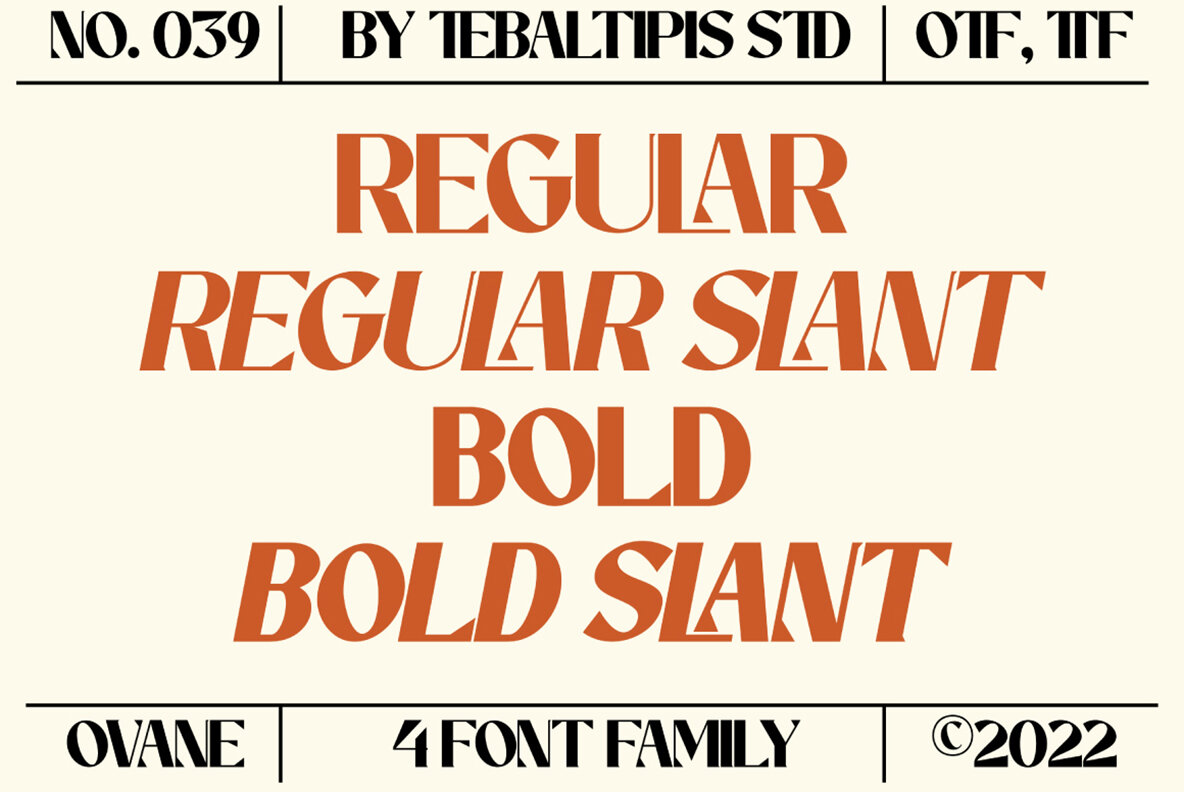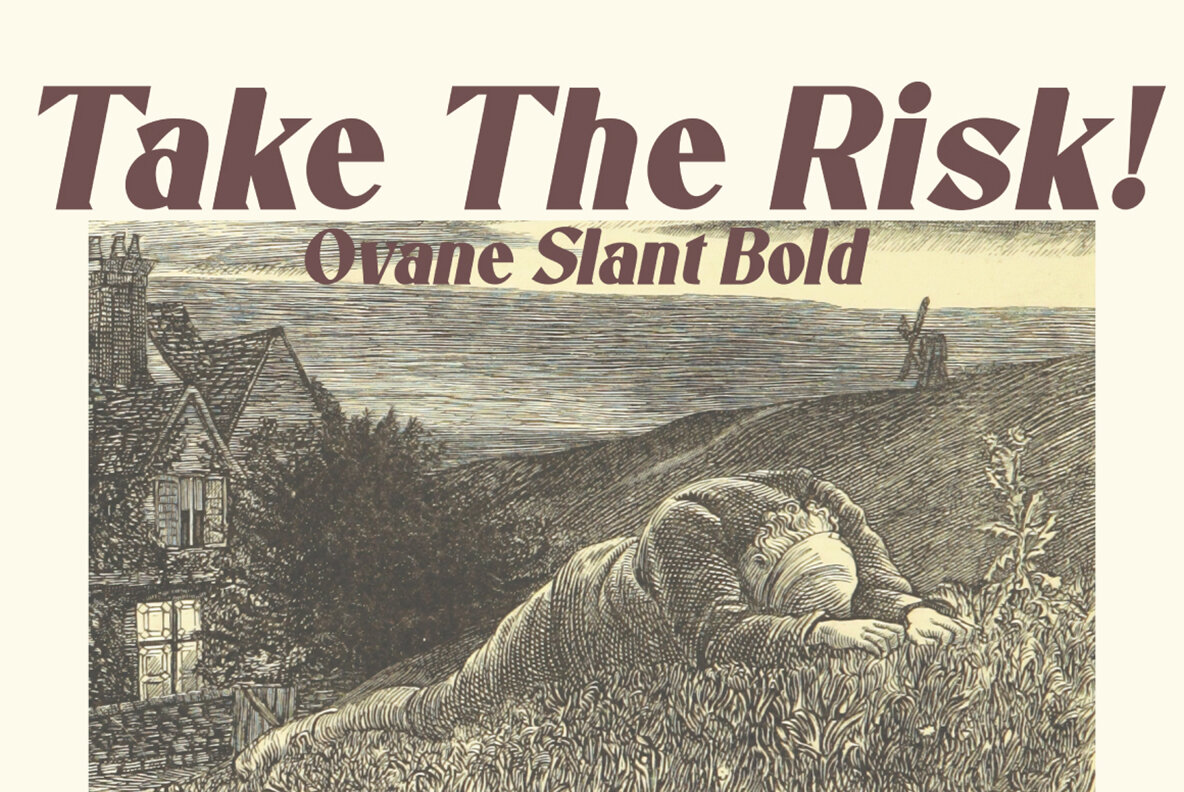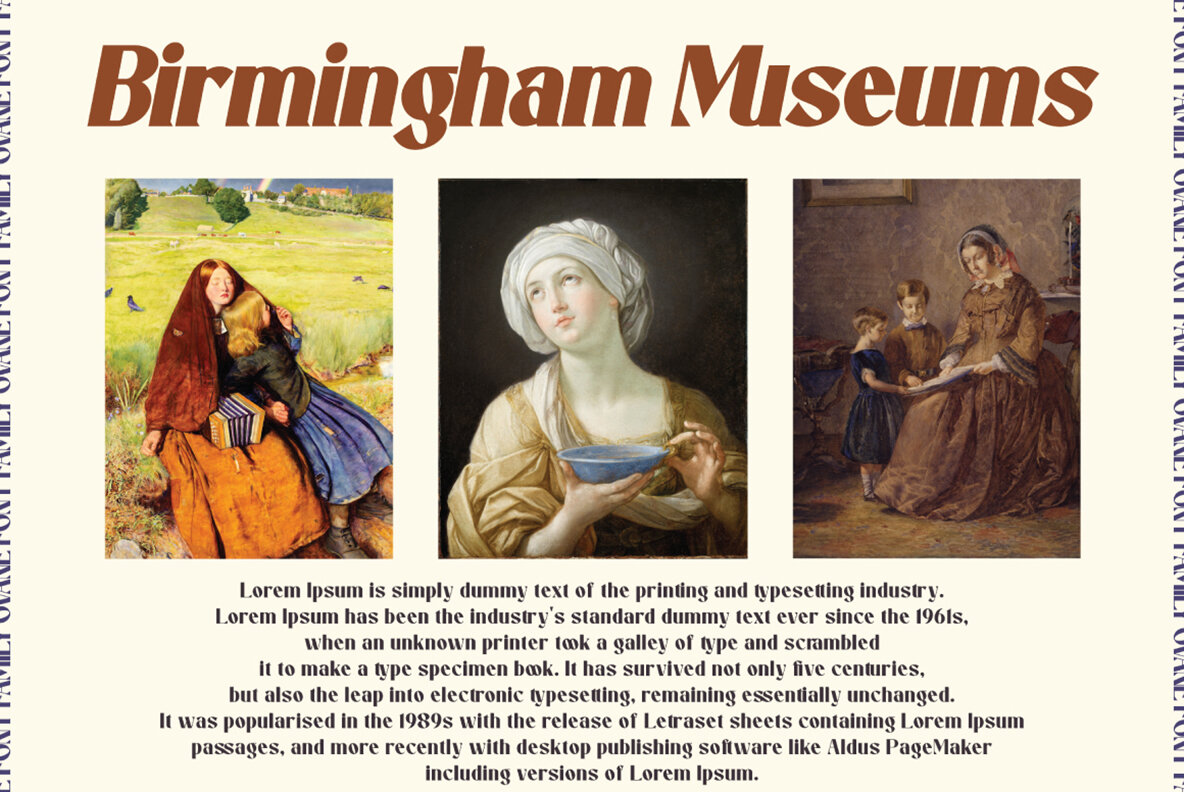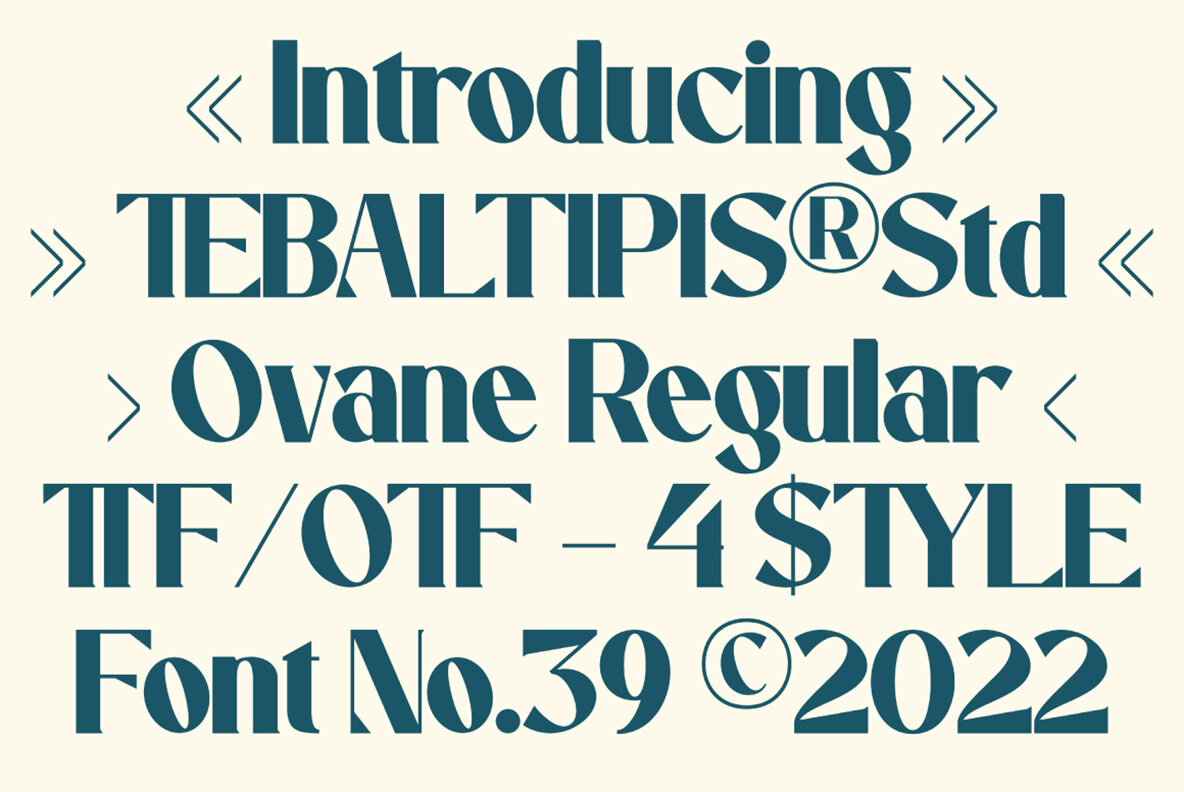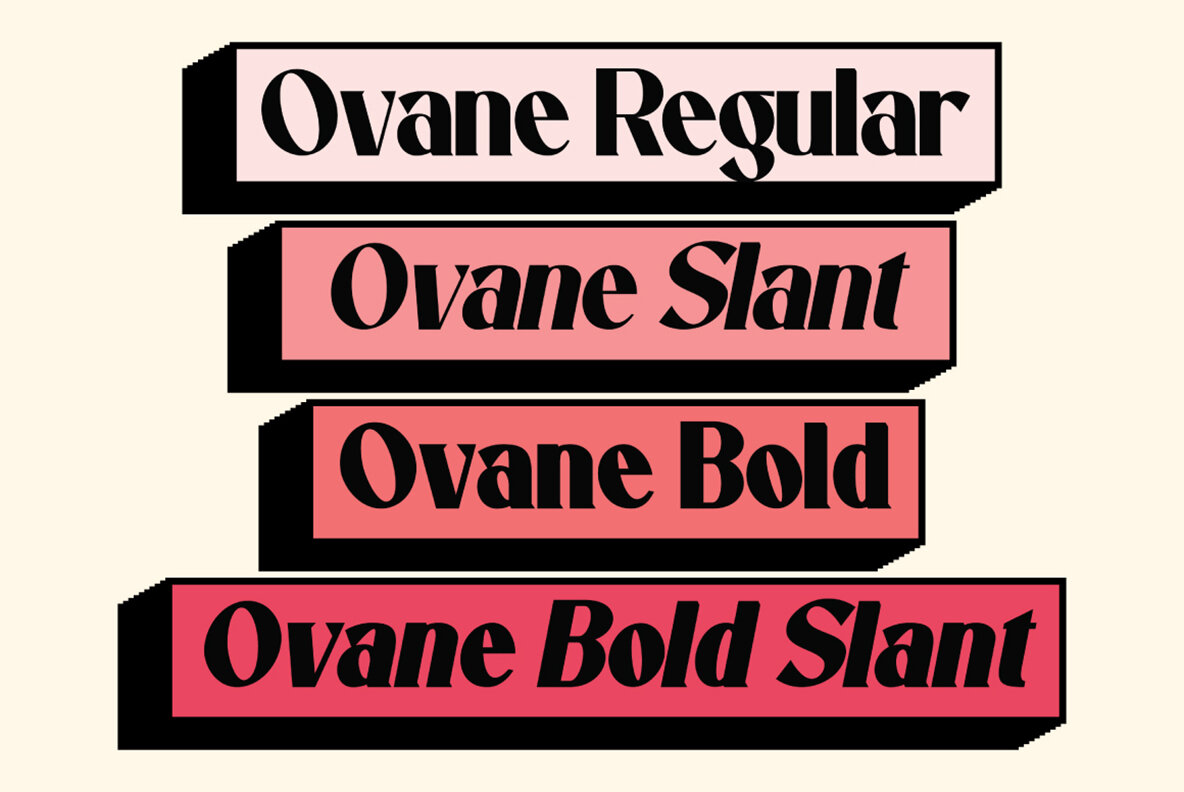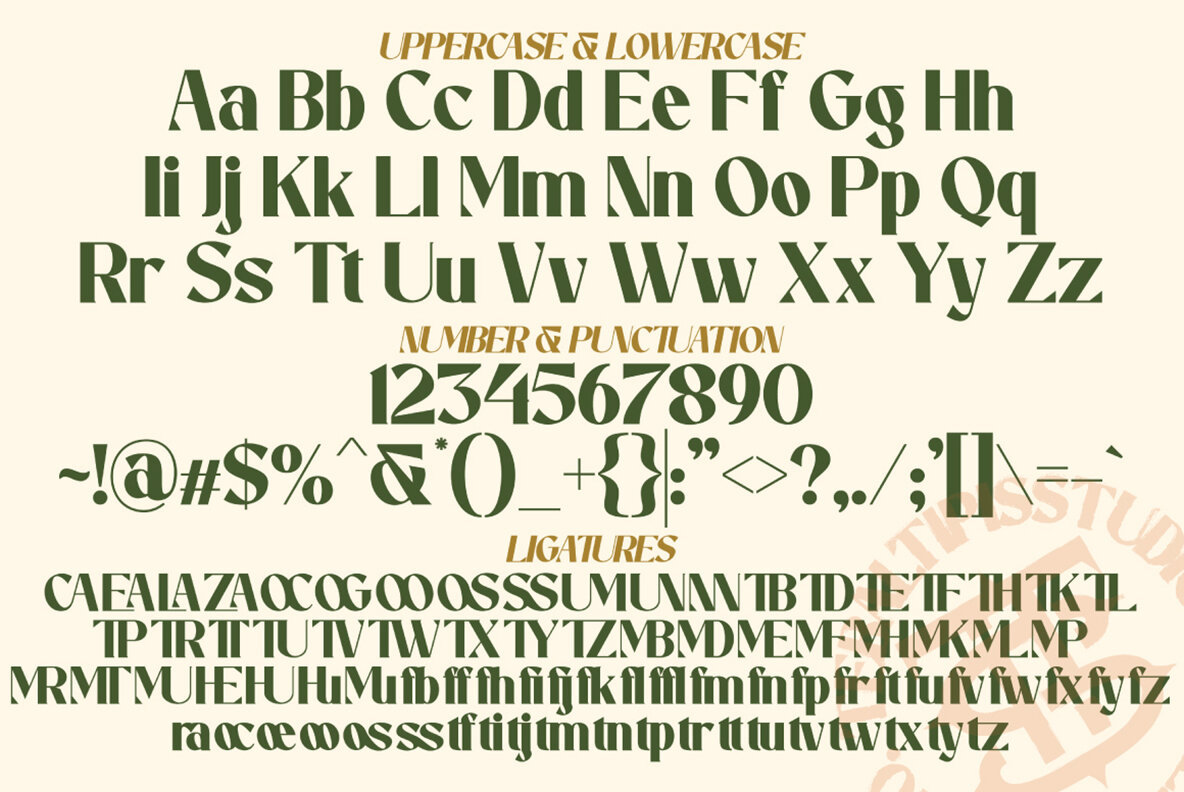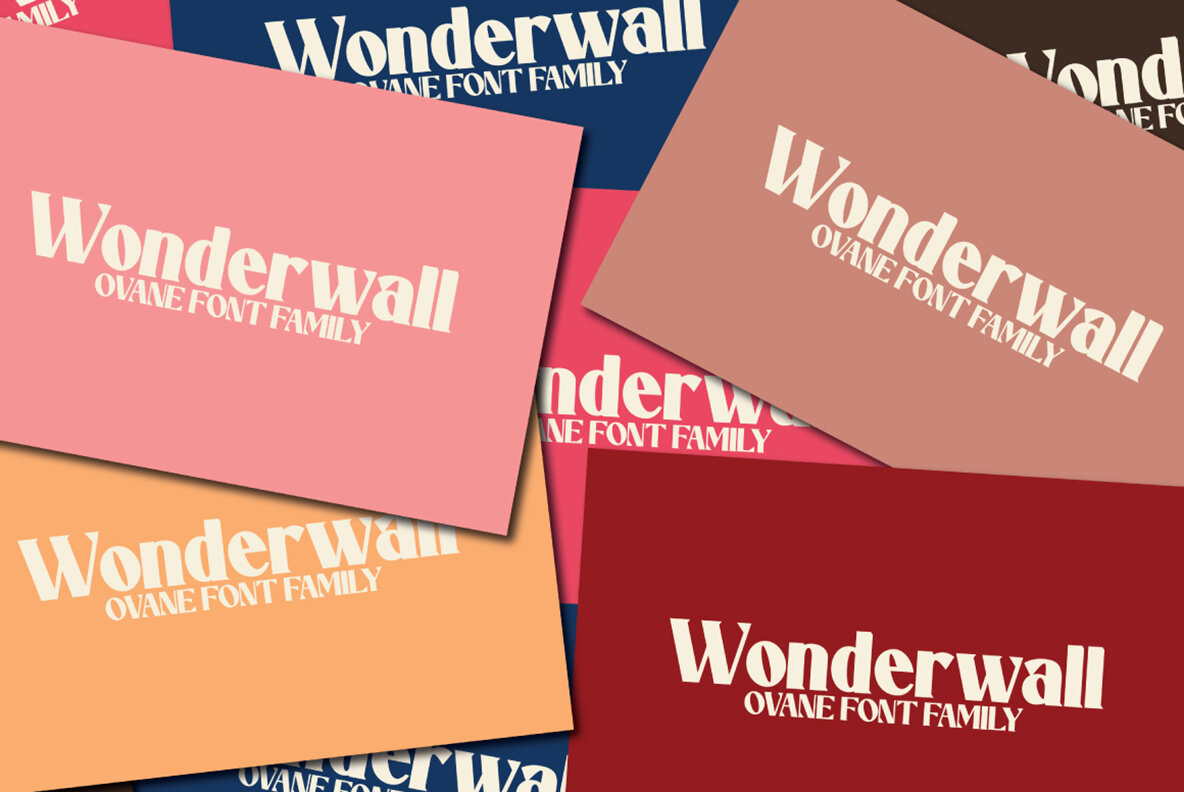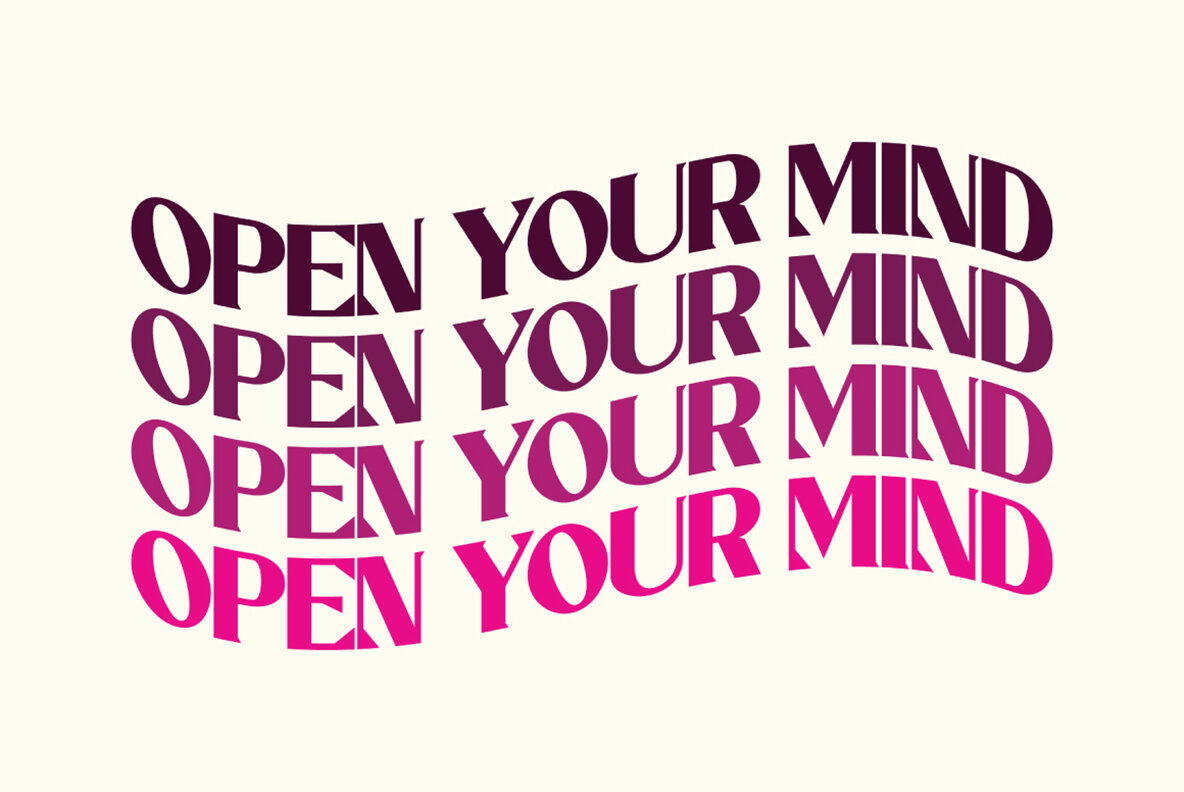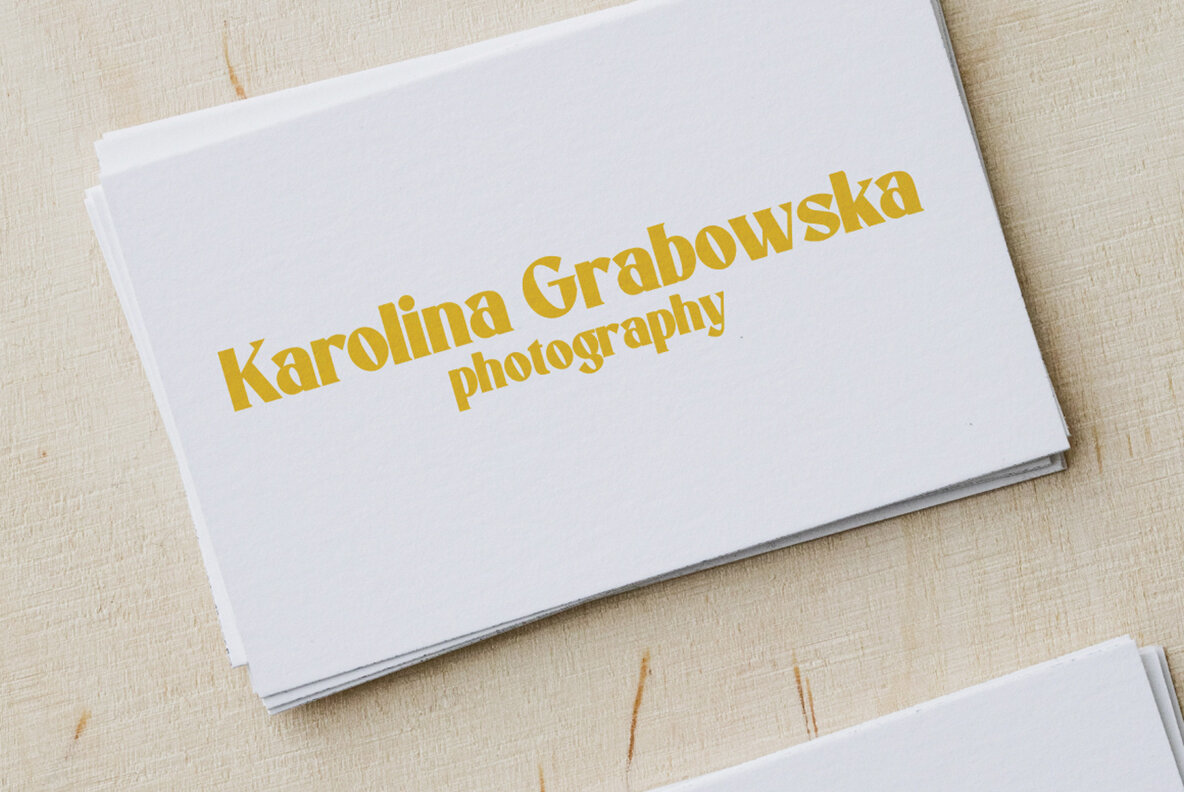
Ovane Font
The Ovane typeface presents a new, fresh, and modern sans serif style. Featuring a strong and dynamic design, it is perfect for applications such as greeting cards, branding materials, business cards, quotes, posters, and more. Ovane is a clean display typeface that combines strength and modernity. It's impactful at display sizes while remaining highly readable for text, making it versatile for various design needs. The sharp triangular serifs and unique letter shapes enhance its suitability for logo design and editorial use.Ovane: Fresh and Modern Sans Serif
Design Features